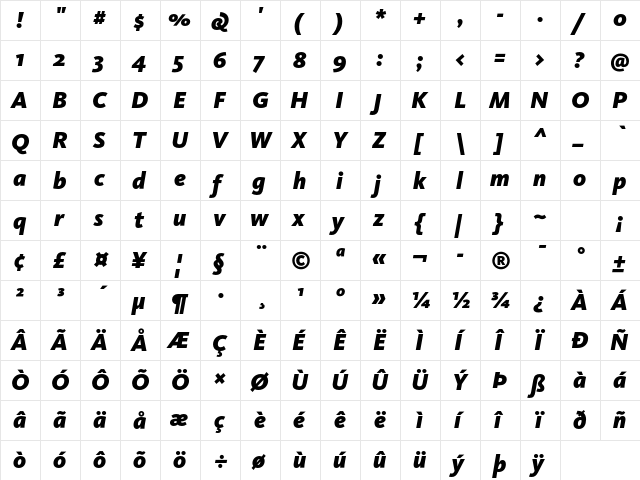
KievitOT-BlackItalic Regular Font Preview
KievitOT-BlackItalic Regular
KievitOT-BlackItalic Regular Font Details
| Designer | Mike Abbink |
Design Context for KievitOT-BlackItalic Typeface
KievitOT-BlackItalic takes a measured approach to typography — its balanced proportions and neutral character make it a reliable workhorse for both digital and print work. Its italic angle brings a sense of urgency and motion to the letterforms.
Pro Tip: Try KievitOT-BlackItalic for annotation and caption copy alongside an upright companion — the contrast in angle creates a dynamic but ordered typographic system.